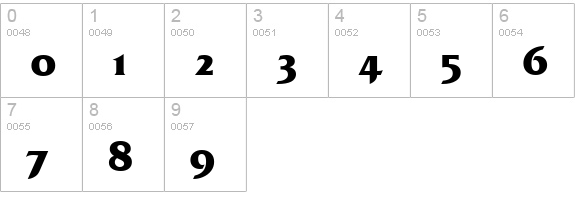
Fremont-Osf-Bold is a strong, high-contrast variant in the Fremont typeface family \xE2\x80\x94 well suited to headlines, attention-grabbing titles, and strong calls-to-action.
Fremont-Osf-Bold is a contemporary and bold typeface that exudes confidence and modernity. This versatile font is perfect for creating eye-catching headlines, posters, and branding materials that demand attention. With its strong and clean lines, Fremont-Osf-Bold conveys a sense of strength and professionalism. The best part? Fremont-Osf-Bold is available for free download at FontsMarket.com. This means that you can easily access this high-quality font for your design projects without any cost. Whether you are a designer, marketer, or student, Fremont-Osf-Bold offers a sophisticated and stylish option to elevate your typography game. Don't miss out on the opportunity to enhance your designs with Fremont-Osf-Bold. Download this stunning font for free today and make a bold statement with your next project!